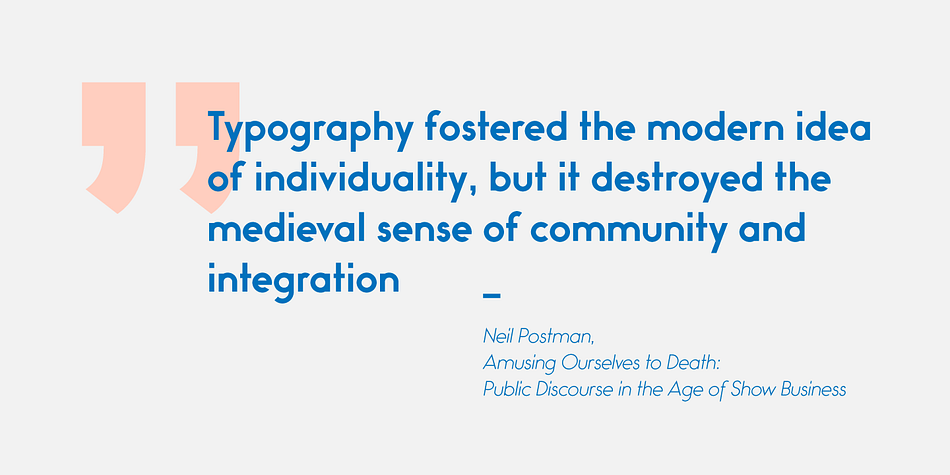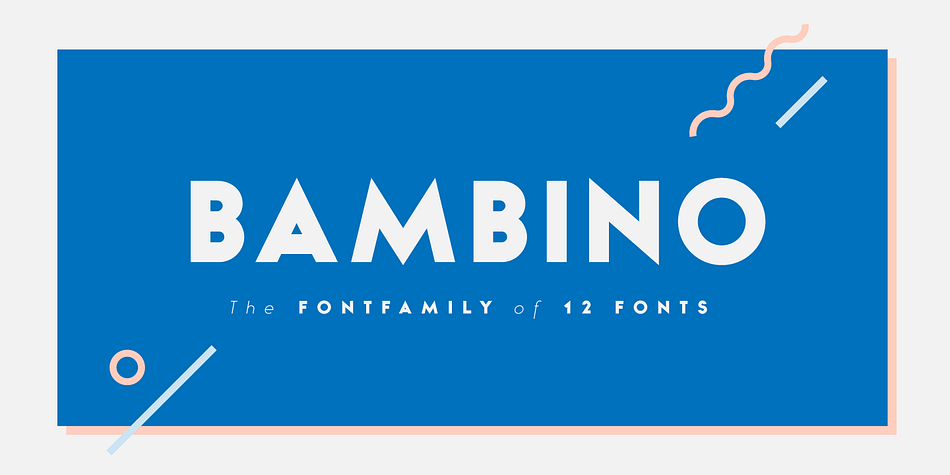
Bambino is a sans serif font family. This typeface has twelve styles and was published by Mindburger Studio.
Bambino Font Family is a typography project by Milos Mitrovic and affiliates. Bambino has an influence of 1920’s Futura like fonts and art deco look and feel. Combining it’s vintage character with clean geometric form and organic flow, Bambino is shaped to fit modern aesthetics. There are 12 fonts (six weights with italics) included in the family.
Bambino weight range spreads from almost hairline lightness to extreme bold style.